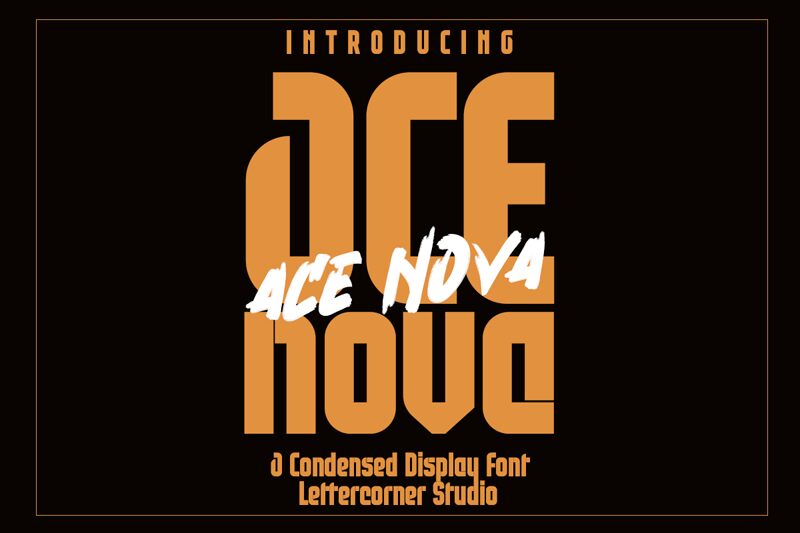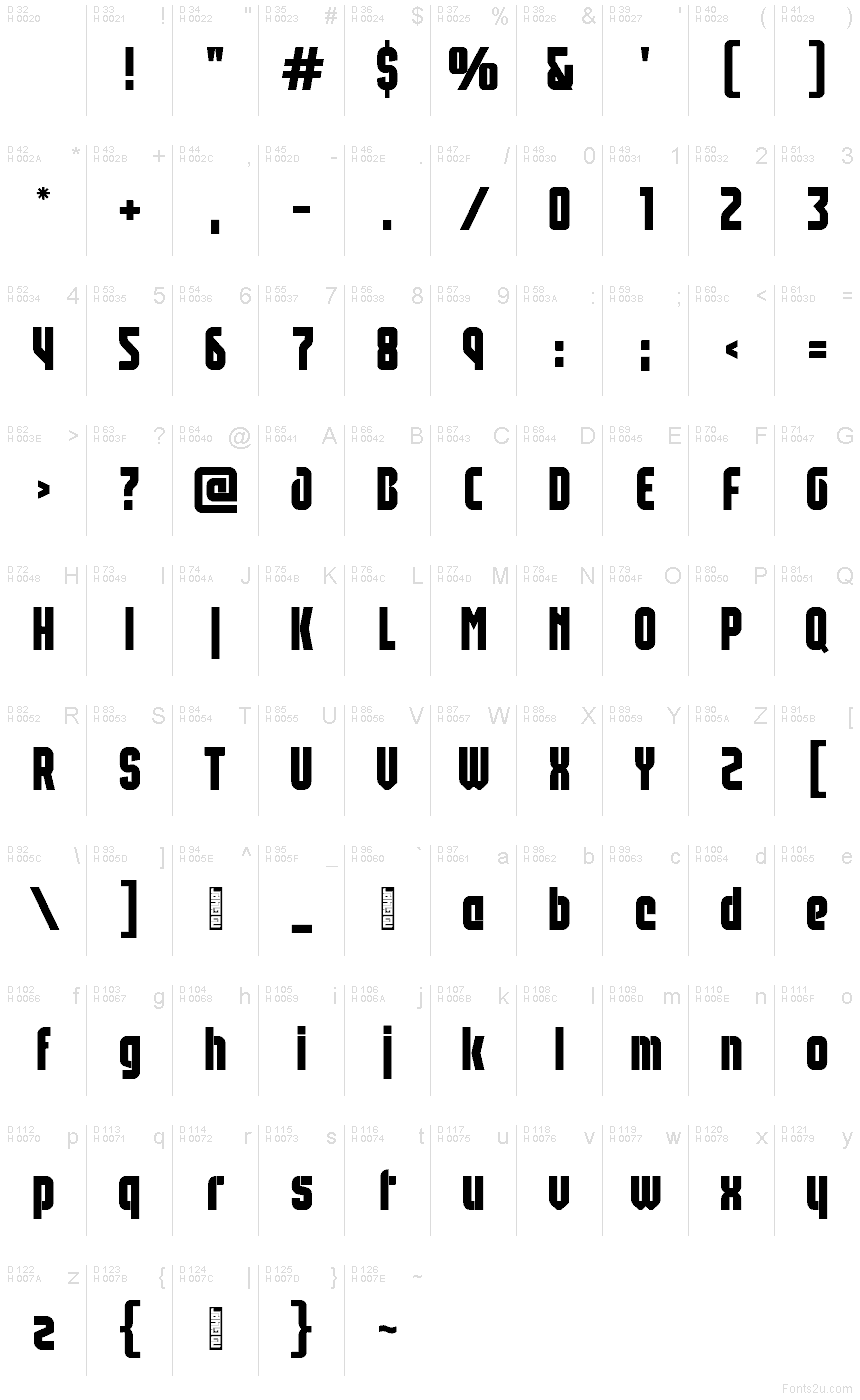
Ace Nova font by Mocha Frappuccino has the makings of a solid reading or heading display type that is immediately readable. Each character of this modern, bold and condensed typeface keeps its geometric uniform look with angled edges and exquisite blocky finish. Those are obvious qualities implemented intentionally by this beauty’s creator.
A selection of retro and modernist projects will certainly be made possible using Ace Nova. More specifically, the different display needs may include logotypes, ad banners, magazine covers, books front pages, website headings, social media visuals and others.